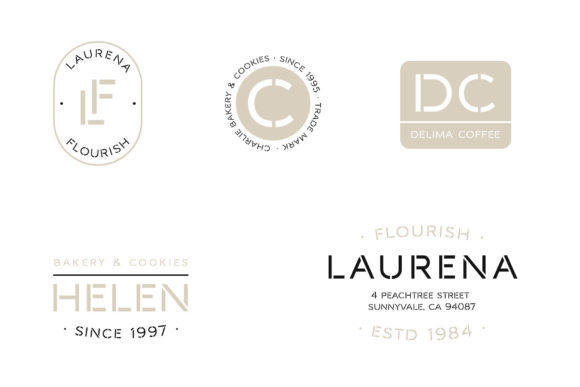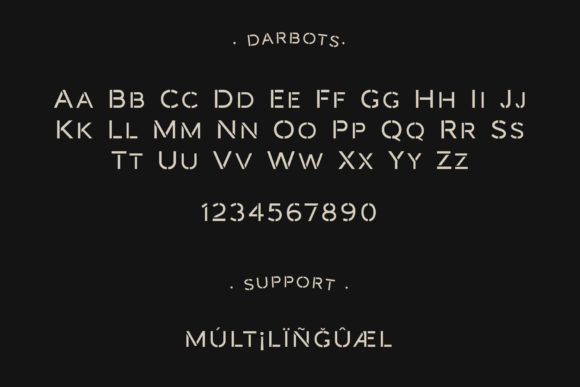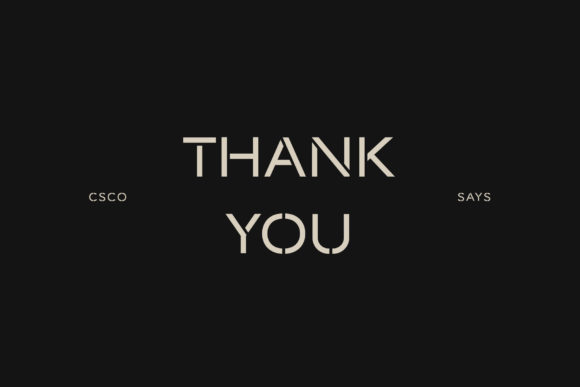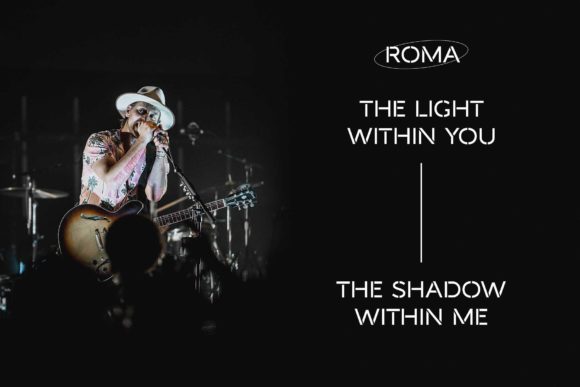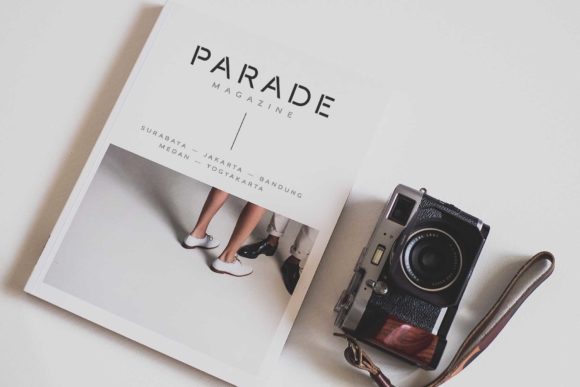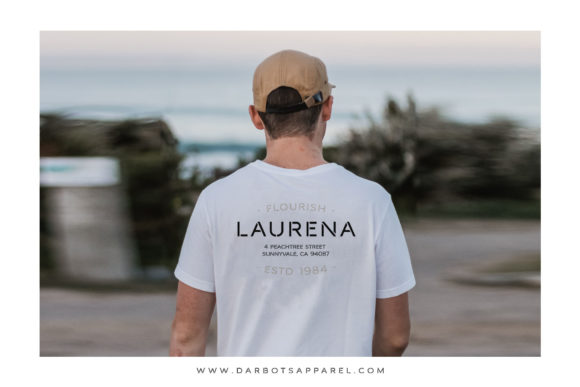
Darbots Font: Elevate Your Design with Elegance and Versatility
In the world of typography, fonts play a crucial role in conveying messages, evoking emotions, and creating lasting impressions. For designers and crafters seeking a unique and sophisticated aesthetic, Darbots Font is an exceptional choice. This distinct, elegant sans serif font seamlessly blends traditional influences into a contemporary design, offering a perfect balance of refinement and versatility.
The Distinctive Characteristics of Darbots Font
Darbots Font stands out with its well-balanced Latin details, which contain distinctive contrasts. These contrasts add a layer of sophistication and elegance, making Darbots a perfect fit for projects that demand a high level of refinement. The font’s sans serif design ensures a clean and modern look, while its traditional influences provide a sense of timelessness and classic appeal.
Achieve an Exquisite yet Subtle Look with Darbots
One of the key benefits of using Darbots Font is its ability to convey an exquisite yet subtle look. The font’s elegant design and balanced proportions make it ideal for use in a variety of applications, from luxury branding and high-end advertising to elegant packaging and refined digital media. Whether you’re aiming to create a sophisticated corporate identity or a beautiful editorial layout, Darbots provides the perfect typographic solution.
Maximum Versatility for Diverse Design Needs
Darbots Font is designed to offer maximum versatility, making it suitable for a wide range of design projects. Its clean and modern aesthetic ensures that it can be used in both digital and print applications, from websites and mobile apps to brochures and posters. The font’s excellent legibility and readability also make it an excellent choice for body text, while its elegant design and distinctive contrasts ensure that it stands out as a headline or display font.
Why Designers and Crafters Love Darbots Font
Designers and crafters appreciate Darbots Font for its unique combination of elegance, versatility, and sophistication. Here are a few reasons why Darbots has become a go-to font for creative professionals:
- Elegant Design: Darbots’ refined and balanced design makes it perfect for projects that demand a high level of sophistication.
- Versatility: The font’s clean and modern aesthetic ensures that it can be used in a wide range of applications, from digital media to print materials.
- Distinctive Contrasts: Darbots’ distinctive contrasts add a layer of elegance and refinement, making it stand out from other sans serif fonts.
- Excellent Legibility: The font’s excellent legibility and readability make it suitable for use in body text, headlines, and display applications.
How to Use Darbots Font in Your Design Projects
Using Darbots Font in your design projects is easy and straightforward. Here are a few tips to get you started:
- Pair Darbots with Other Fonts: Combine Darbots with other fonts to create a unique and visually appealing typographic hierarchy.
- Experiment with Font Sizes: Use Darbots in a range of font sizes to create visual interest and emphasis.
- Play with Color: Use Darbots with a range of colors to add depth and contrast to your design.
Darbots Font is an exceptional choice for designers and crafters seeking a unique and sophisticated aesthetic. Its elegant design, distinctive contrasts, and maximum versatility make it perfect for a wide range of design projects. Whether you’re creating a luxury brand identity, a beautiful editorial layout, or a refined digital media project, Darbots provides the perfect typographic solution.